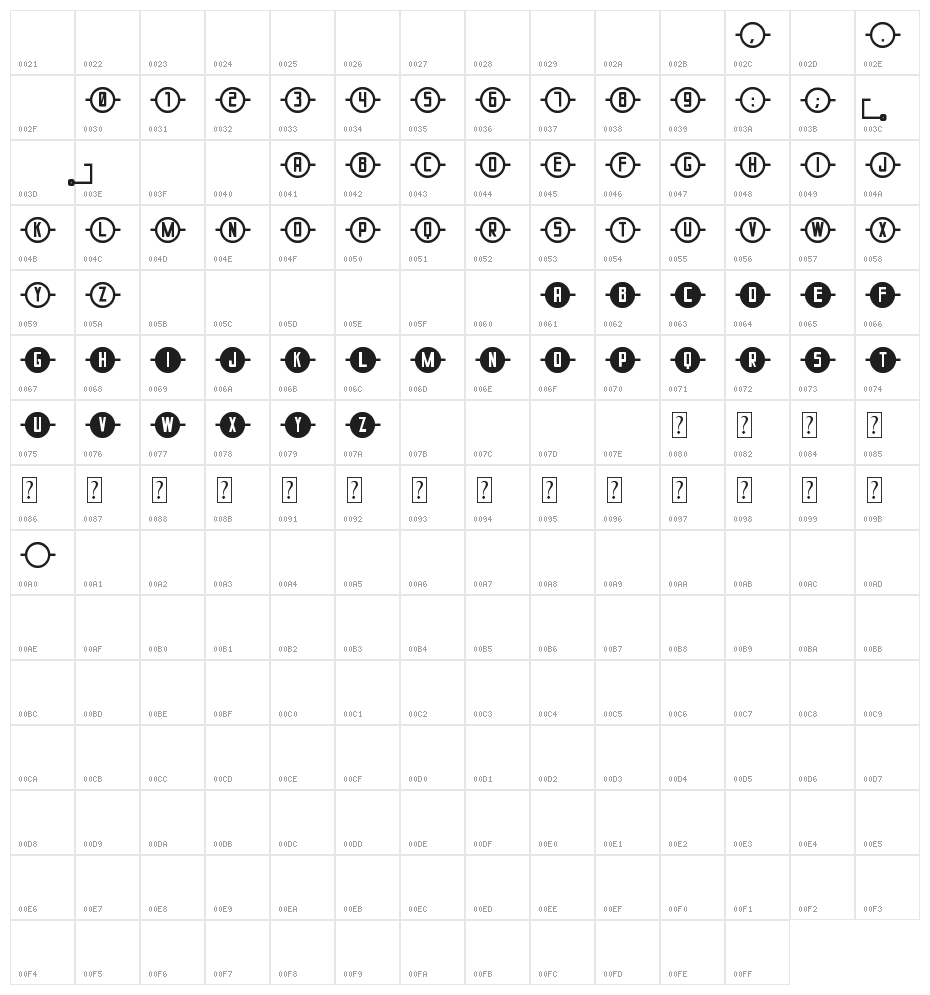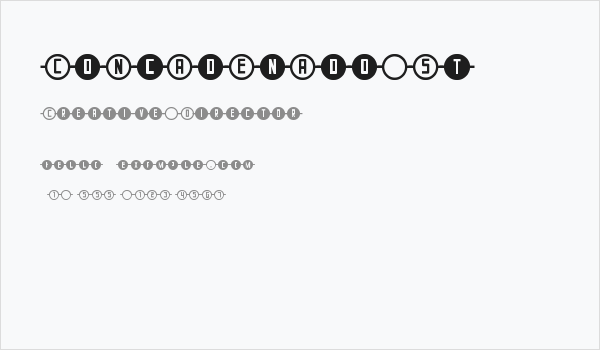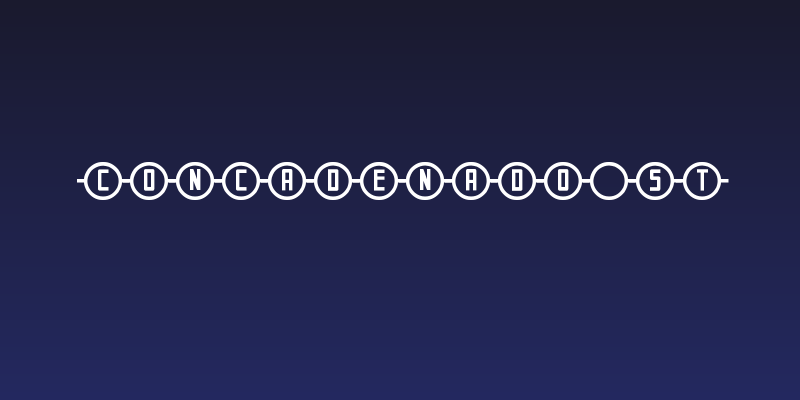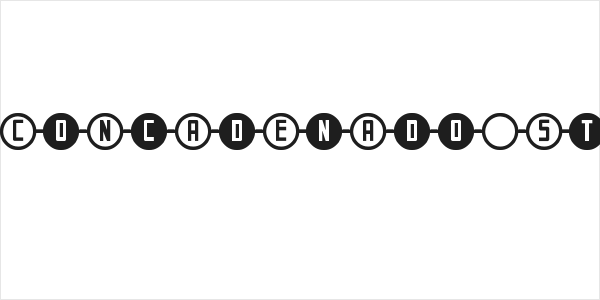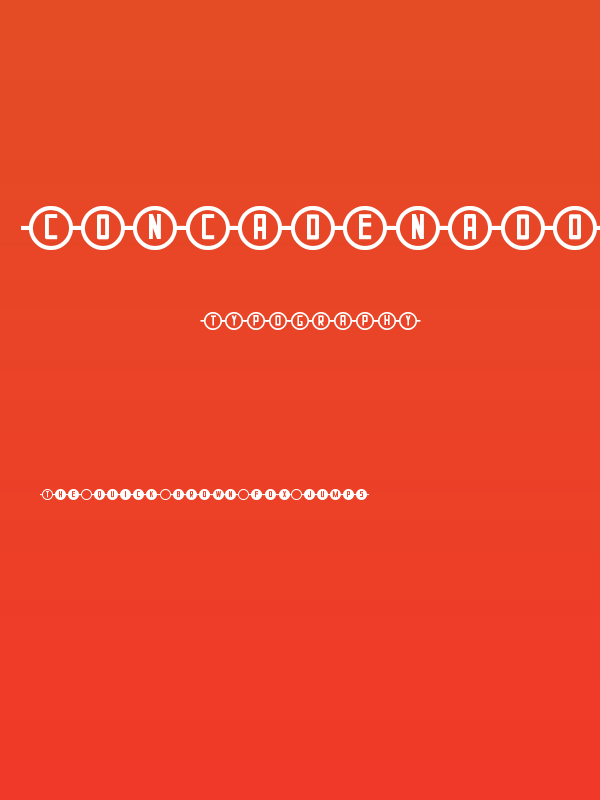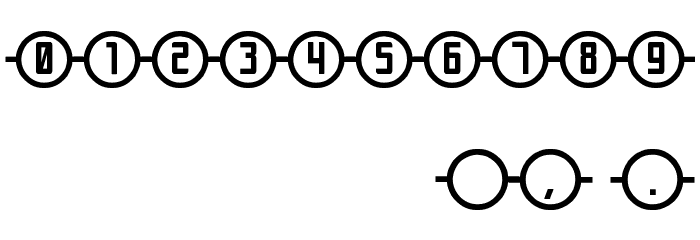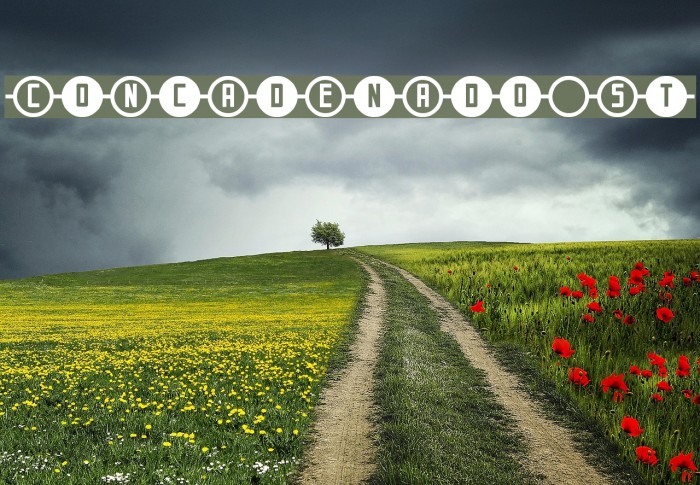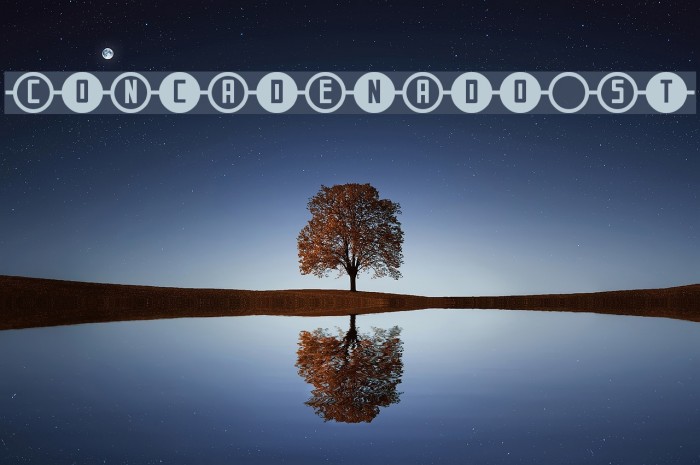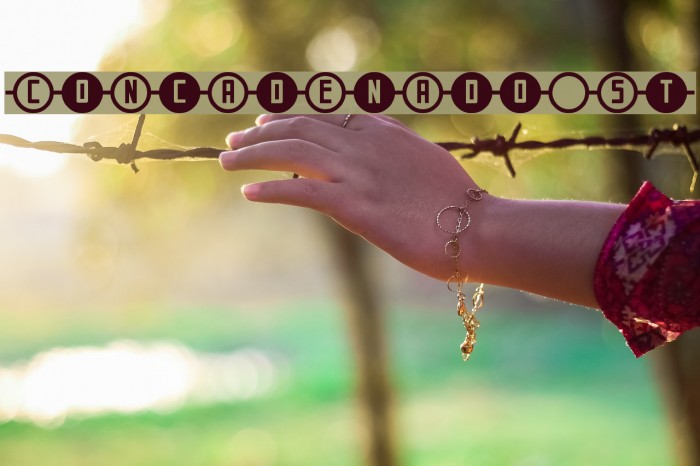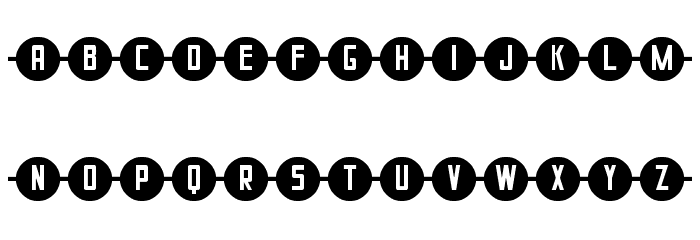
CoNcAdEnAdo St Font
CoNcAdEnAdo St Description
This font features a unique design where each character is enclosed within a circular shape, connected by horizontal lines, creating a chain-like appearance. The letters and numbers are bold and geometric, with a modern and futuristic style. The characters are evenly spaced within their circles, providing a consistent and structured look. This design is both decorative and functional, making it suitable for creative projects that require a distinctive and eye-catching typeface.
| Use Case | Logos, Posters, Branding |
| Proposed Projects | Ideal for branding, logos, posters, and any design project that seeks a modern and unique aesthetic. |